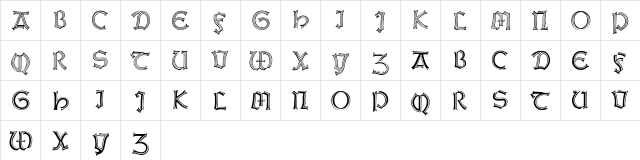
WeissGotnitials Regular
Design Context for WeissGotnitials Typeface
WeissGotnitials is a composed and adaptable typeface that performs quietly and consistently across a wide range of design contexts.